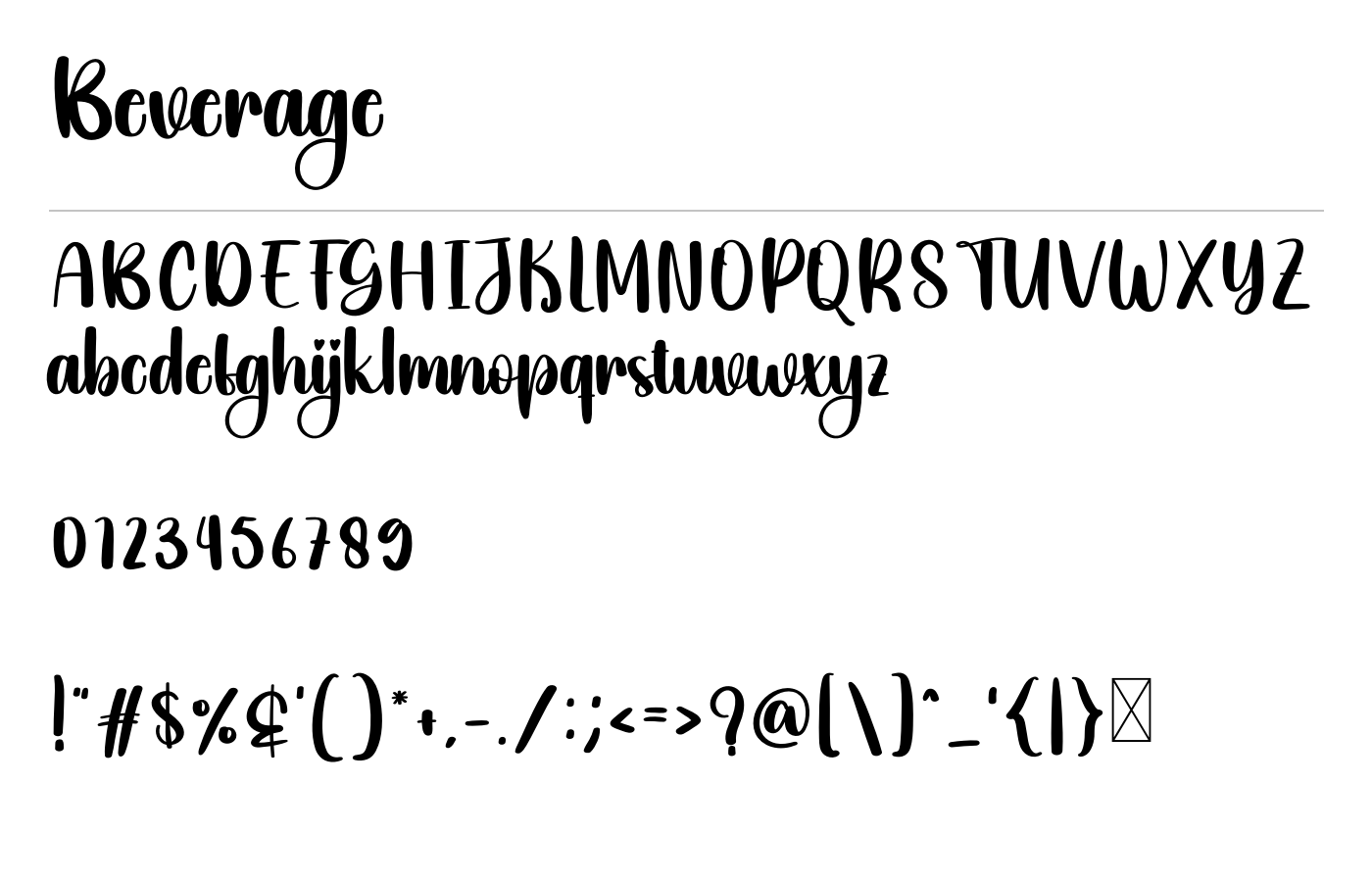
Beverage Font is a playful and charming script typeface with a casual, hand-drawn feel, featuring smooth, rounded strokes and lively letterforms. Its friendly and whimsical style makes it perfect for branding, packaging, and creative projects that seek a warm, approachable vibe. This font works well in headlines and logos where a touch of personality and elegance is desired.
Beverage Font
About Beverage Font